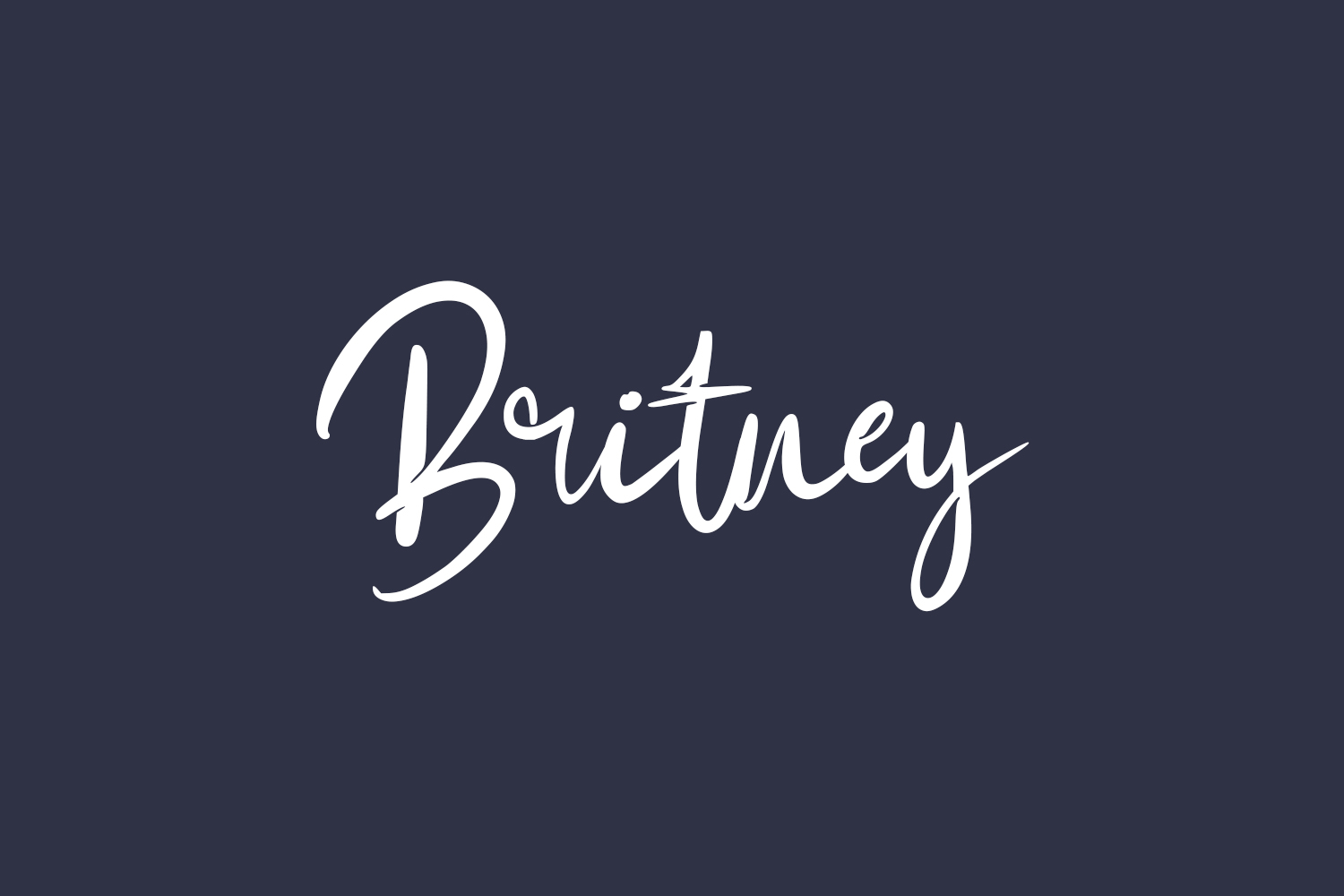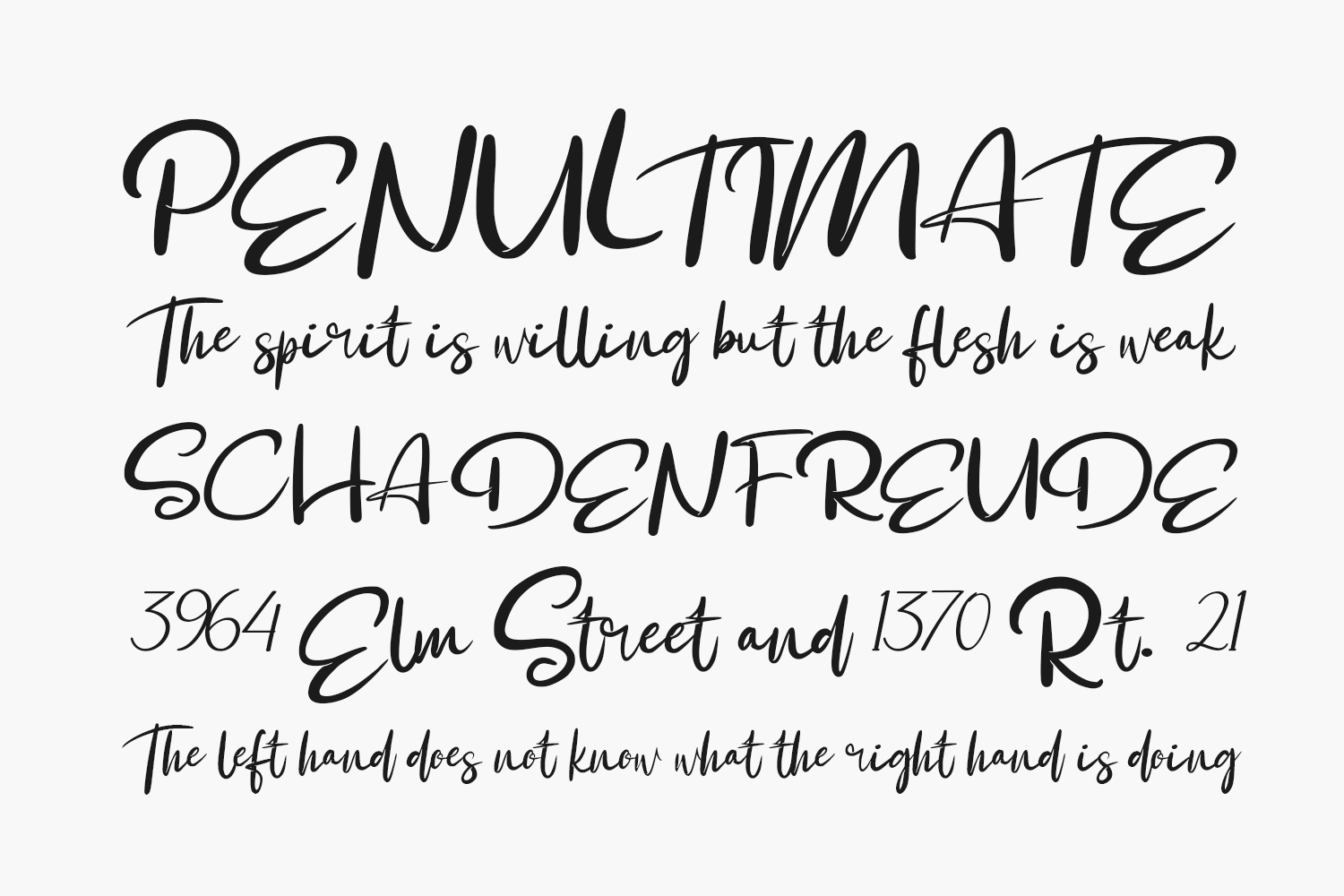
Britney Free Font is a modern homage to classic calligraphy. It will add an authentic vibe to any design project. Britney Free Font was designed by Vunira Design is a demo and free for personal use only. Please purchase the full version for commercial use.